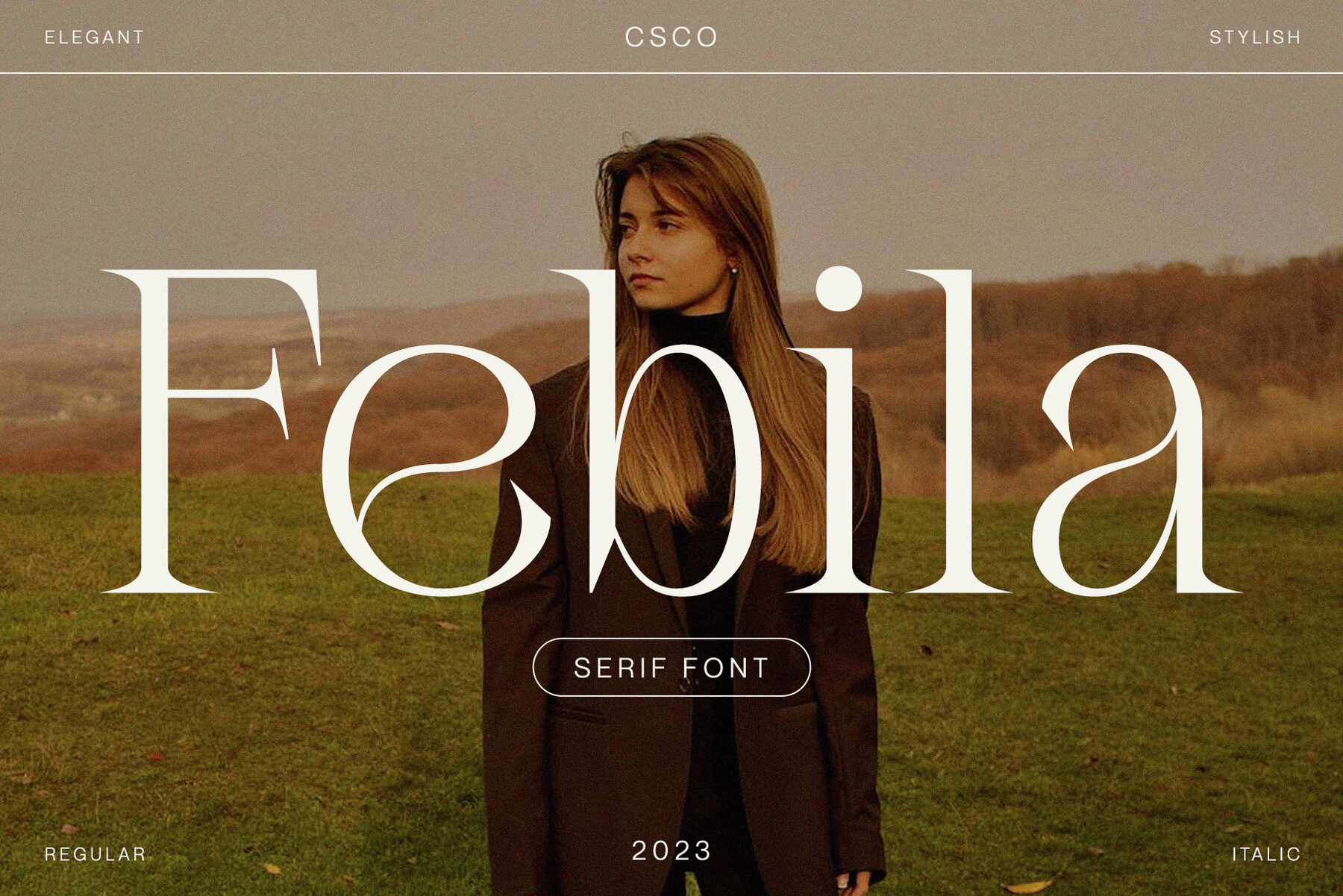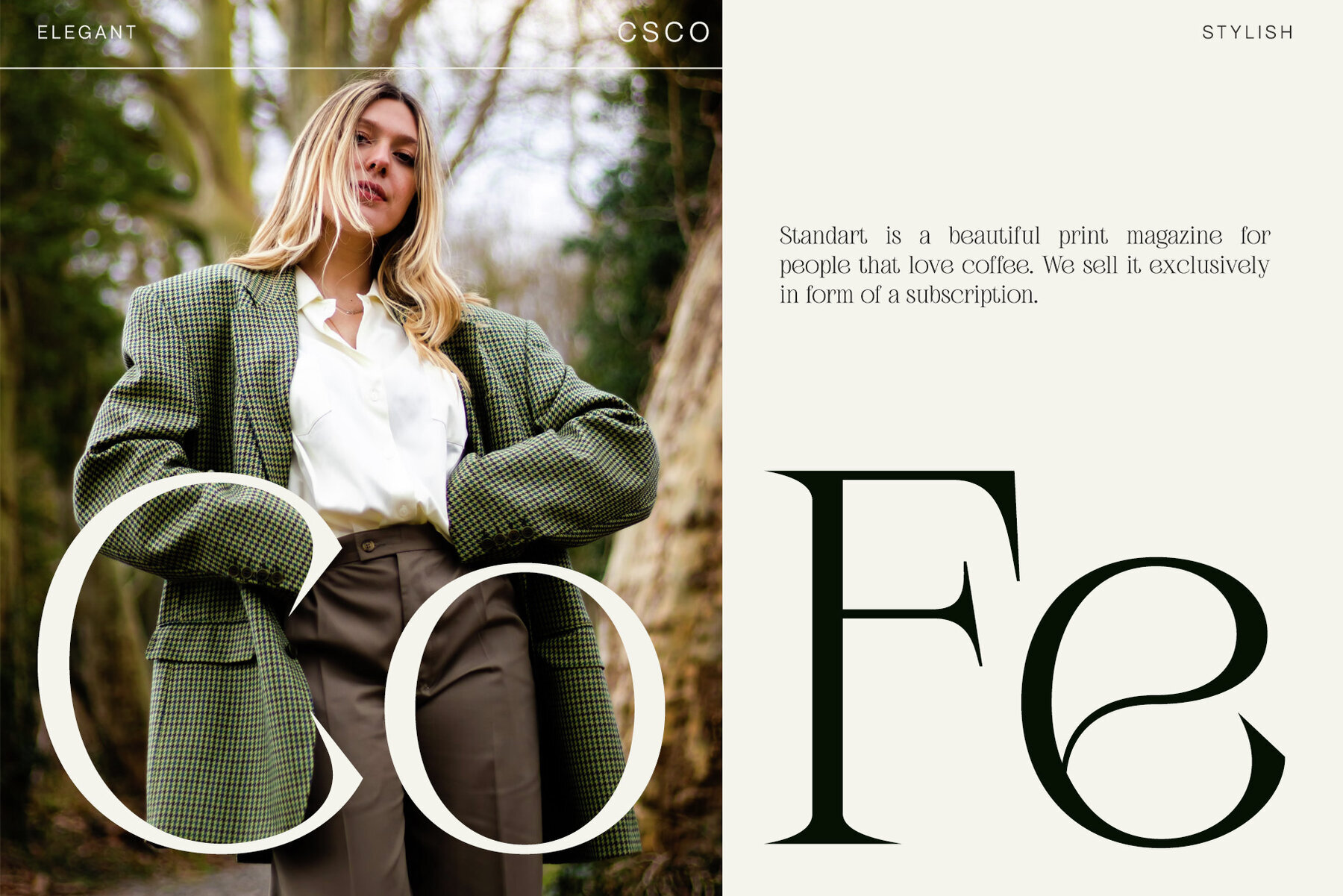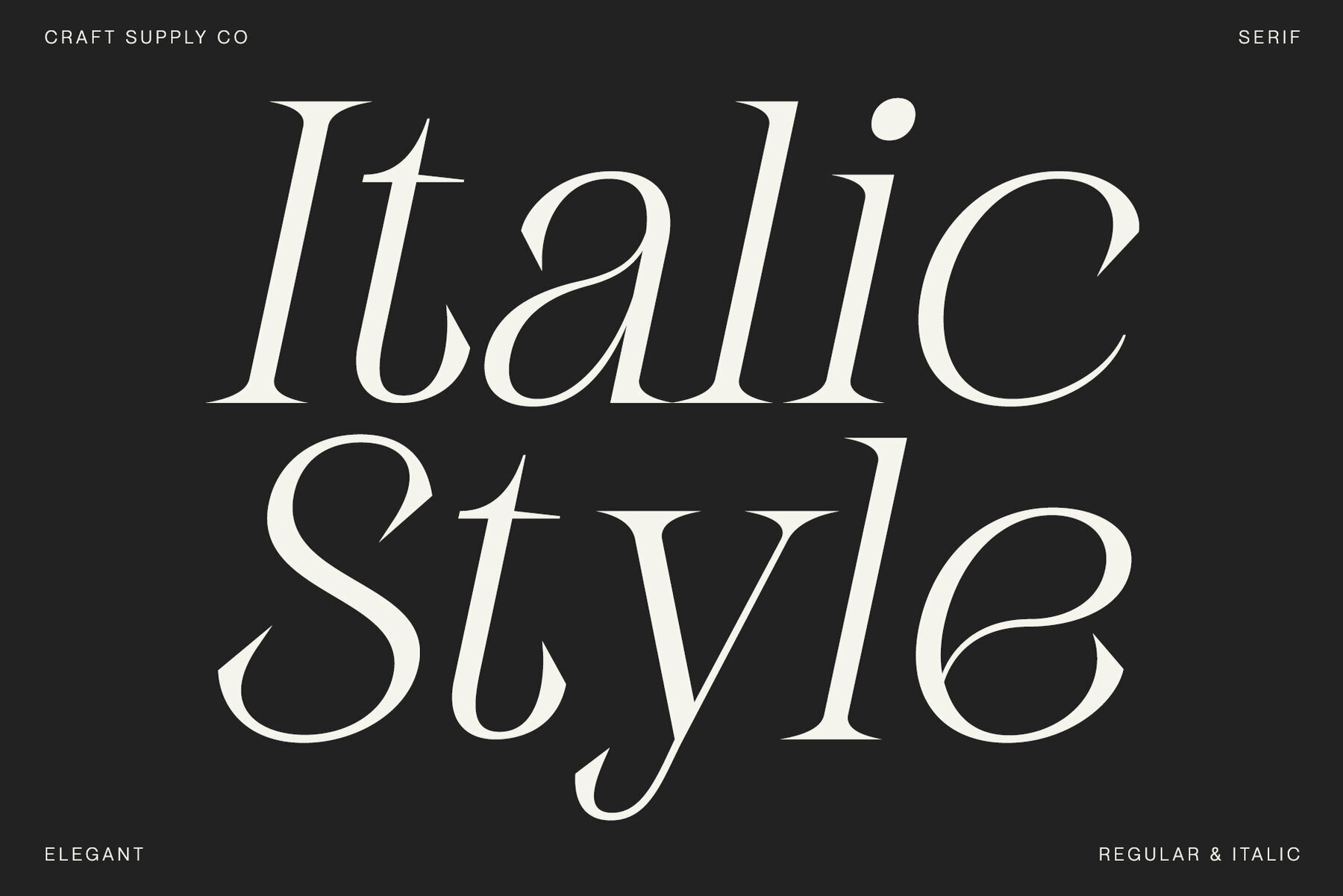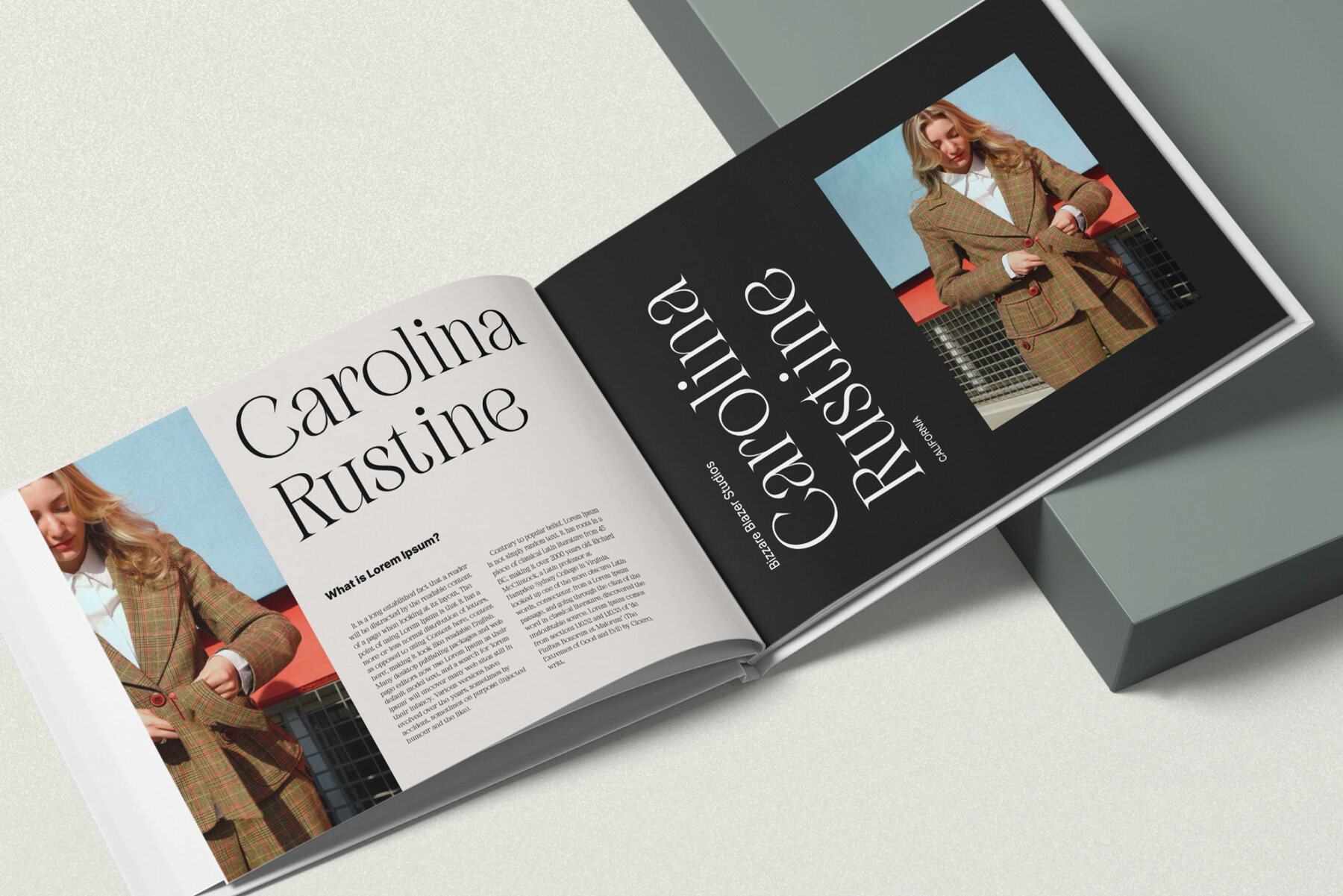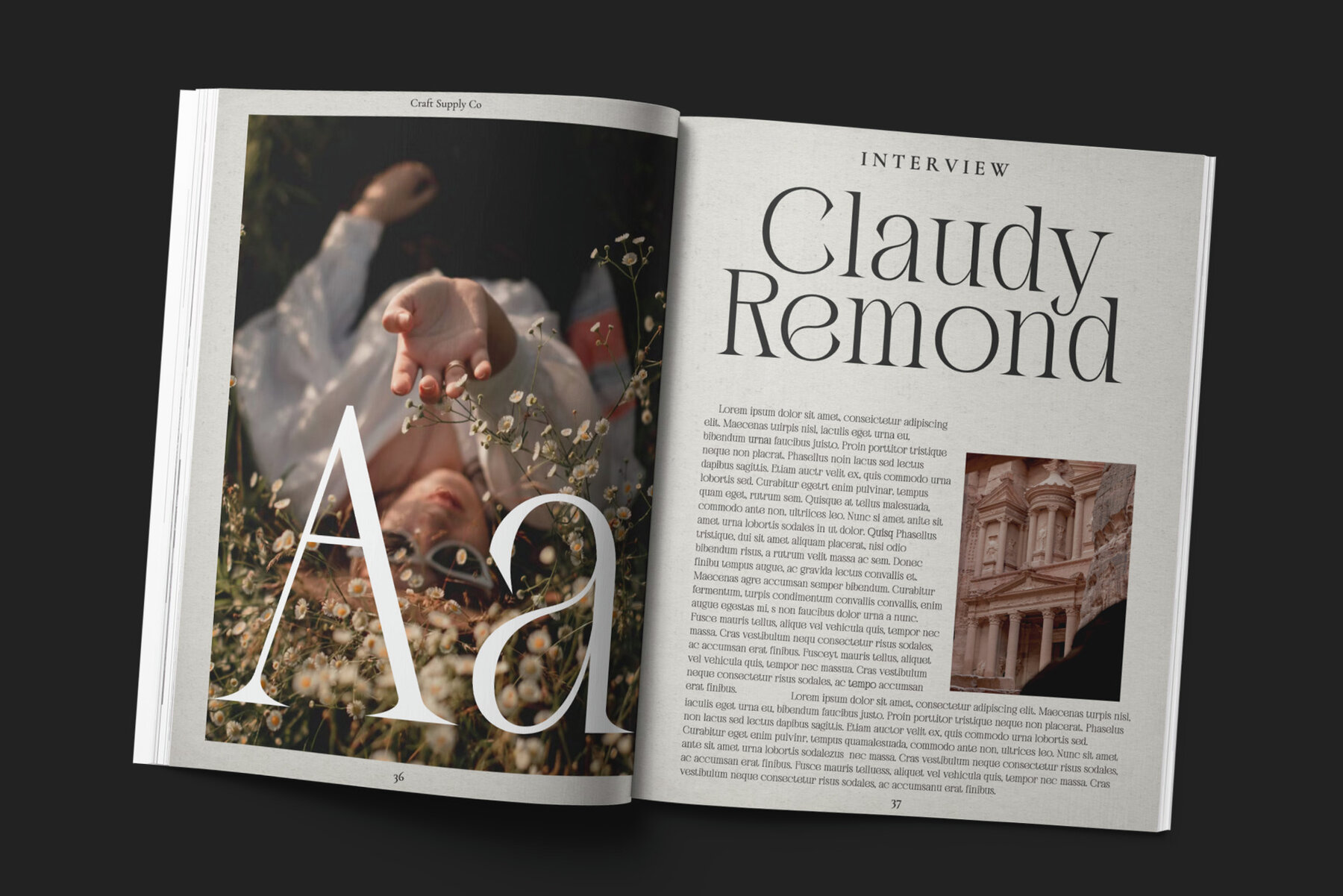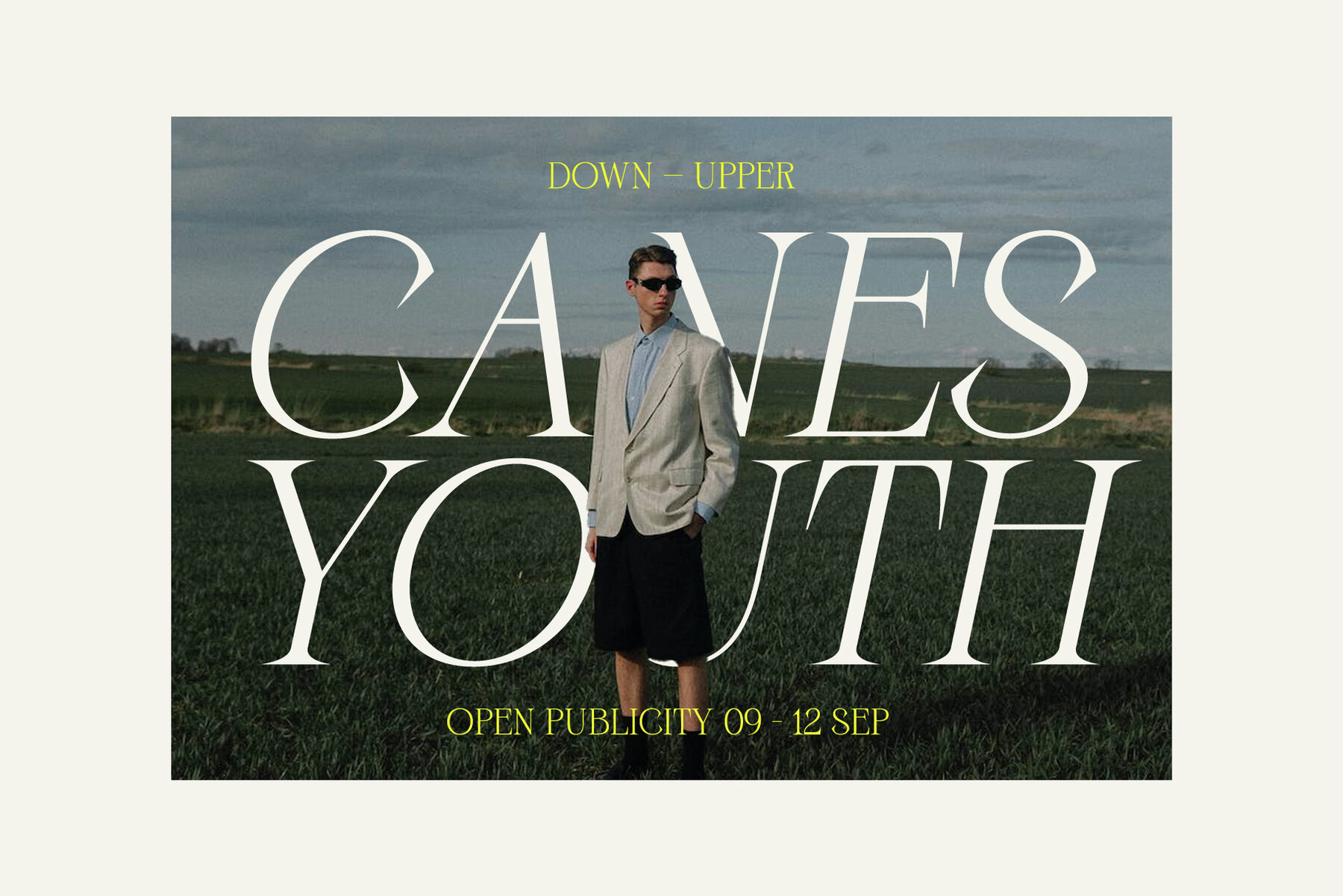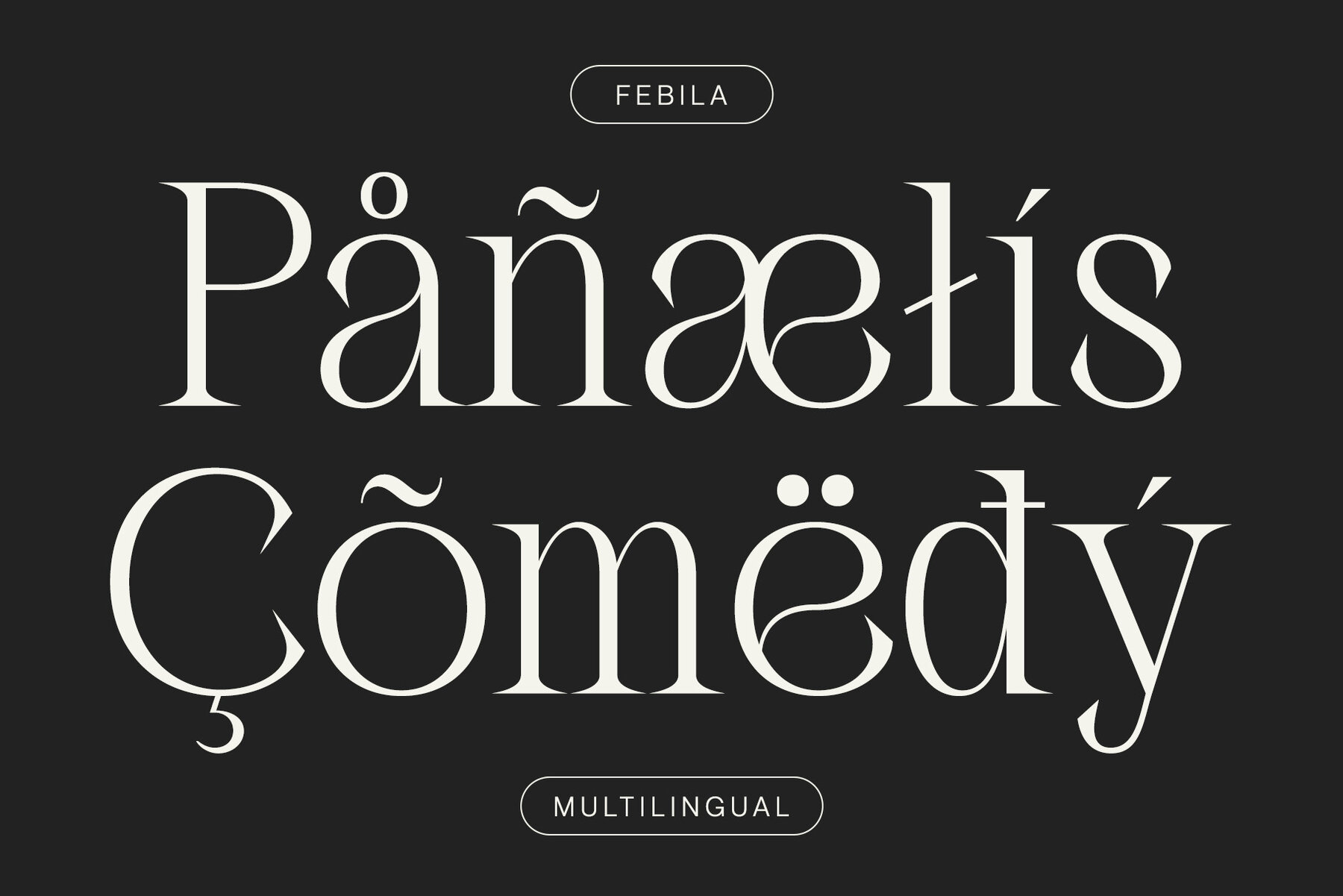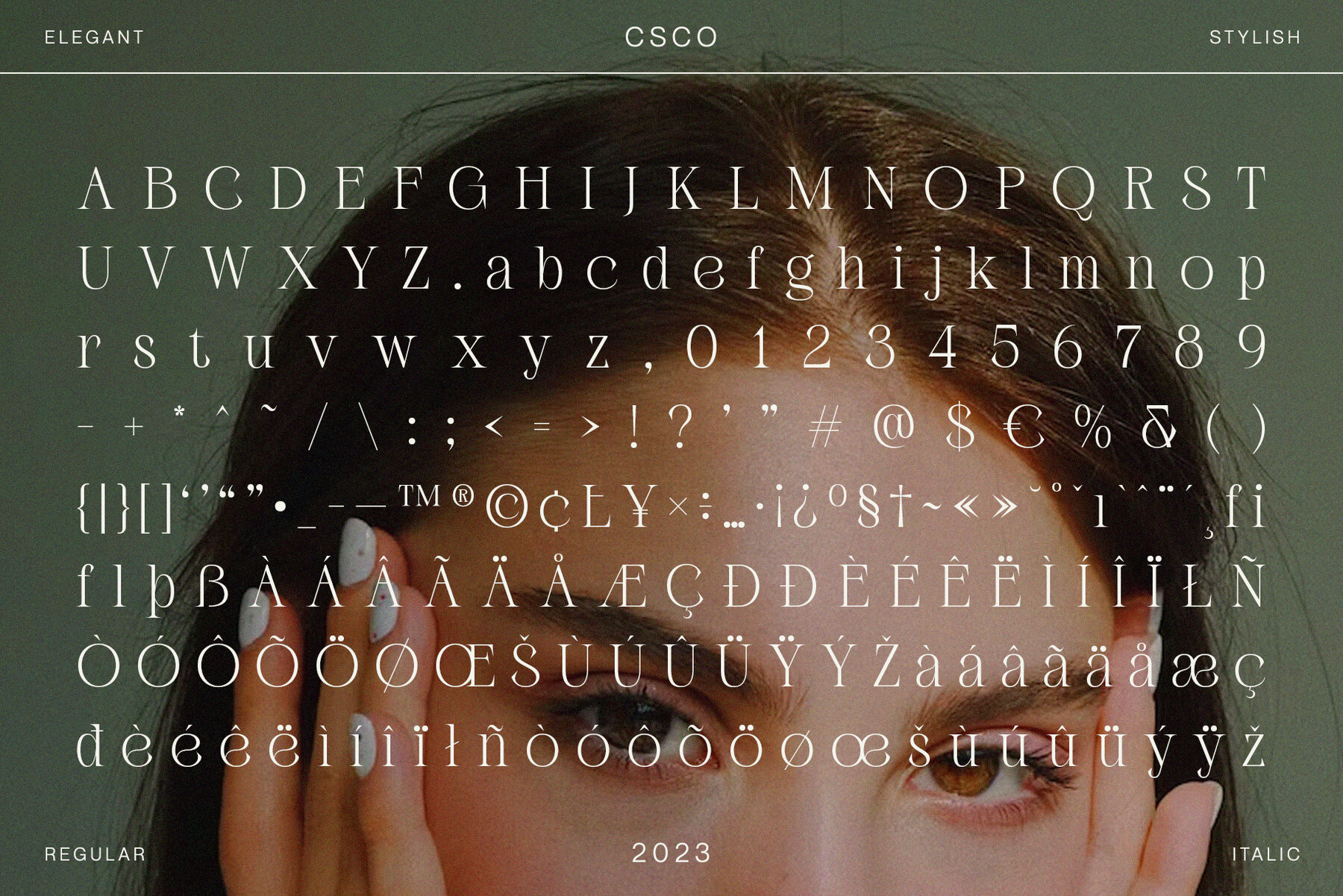
Febila Font
expand_font Febila Font Febila: Timeless elegance, refined typography. Craft captivating designs with an unmistakable touch of luxury. Serif,Elegant,Luxury,Regal Explore Exceptional Fonts for Digital and Traditional Media Fontpath offers a large variety of fonts for every designer, all at affordable prices and in multiple formats. Browse our best in class fonts today for all your creative needs, you can find everything you need right here at our site! Fonts,sans,sans serif,retro,script,decorative,title,FontPath 20140312040223 Fontpath offers 200,000+ of the most professional fonts found online, start downloading today! Real-Time Font Discovery at Fontpath